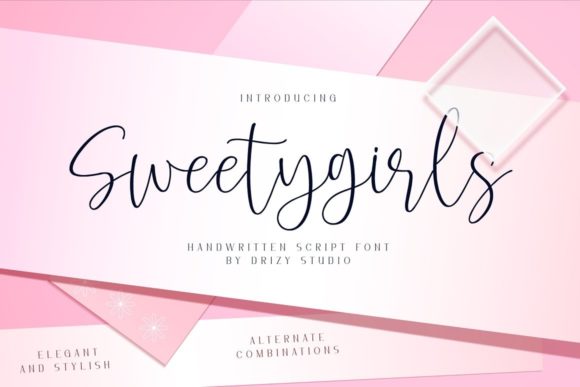
Indulge in the enchanting allure of Sweetygirls Font, a symphony of graceful scripts that will elevate your electronic signatures to new heights of sophistication. Allow the delicate strokes of this exquisite font to dance across your screens, leaving a lasting impression of elegance and charm.
Crafted with meticulous care by the renowned Drizy Studio, Sweetygirls is a masterpiece that seamlessly embodies the very essence of femininity and grace. Its flowing lines and whimsical swashes evoke a sense of timeless beauty, transforming your electronic signatures into works of art.
Beyond its captivating aesthetic, Sweetygirls is a font of unparalleled versatility, effortlessly adapting to a myriad of design styles. Whether you seek to enhance the allure of personal communications, lend a touch of refinement to professional documents, or add a dash of whimsy to creative projects, Sweetygirls will effortlessly rise to the occasion.
With its PUA encoding, unlocking the full potential of Sweetygirls is a breeze. Each glyph and swash is readily accessible at your fingertips, empowering you to unleash your creativity without limits. Experience the joy of crafting electronic signatures that exude both professionalism and a captivating personal touch.
Embrace the enchanting allure of Sweetygirls Font today and elevate your electronic communications to new heights of sophistication. Let your electronic signatures radiate elegance, leaving a lasting impression on all who behold them.